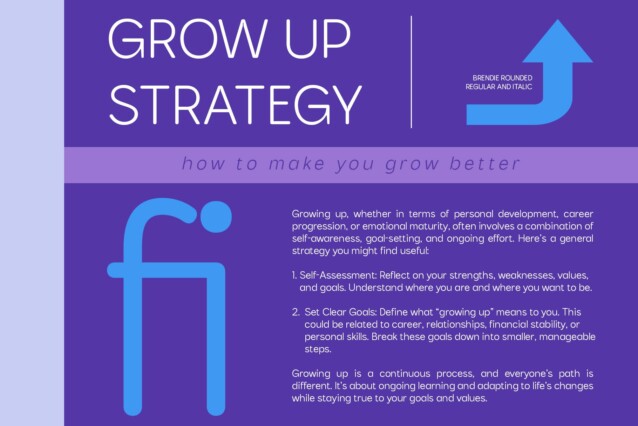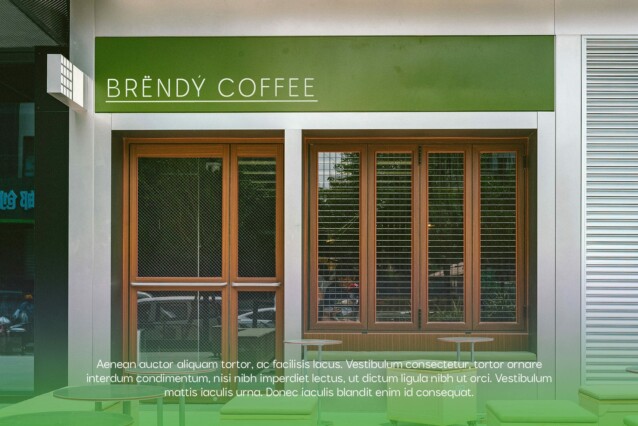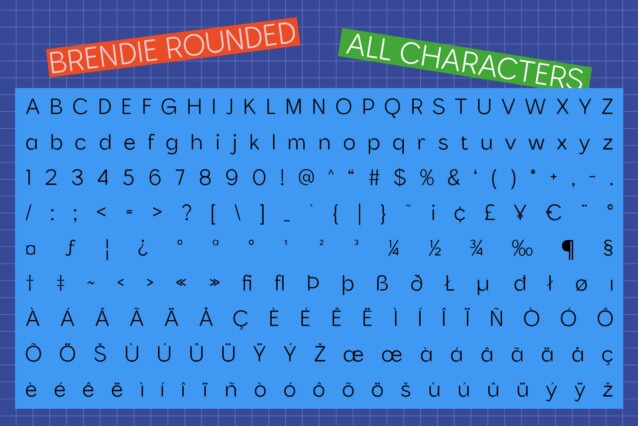
Brendie Rounded Font
Brendie Rounded Font is a modern sans-serif font that features soft, rounded shapes, blending clean, serif-free letters with gentle, rounded edges. This unique design creates a warm and approachable impression while maintaining a sleek and minimalist appearance. The rounded form adds a touch of friendliness and accessibility to the font, making it suitable for various contemporary design needs.